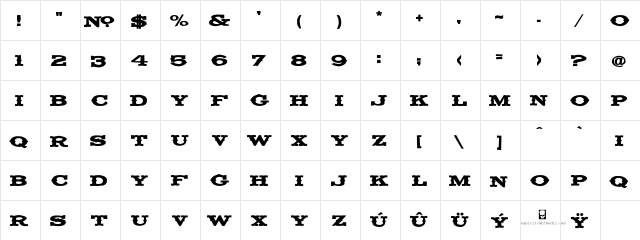
LHF Fancy Full Spurs Bold Regular
| Foundry | Chuck Davis for Letterhead Fonts |
| Designer | Chuck Davis |
Design Context for LHF Fancy Full Spurs Bold Typeface
LHF Fancy Full Spurs Bold is a composed and adaptable typeface that performs quietly and consistently across a wide range of design contexts. Its bold stroke weight gives it real presence on the page.